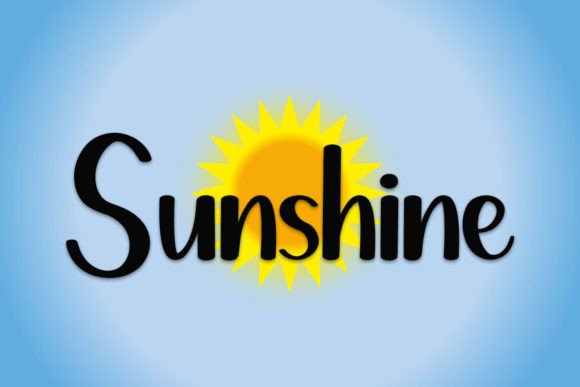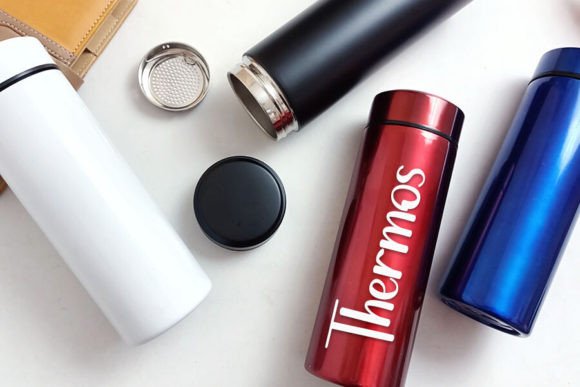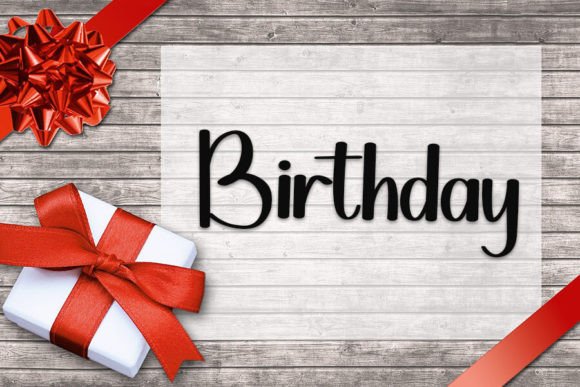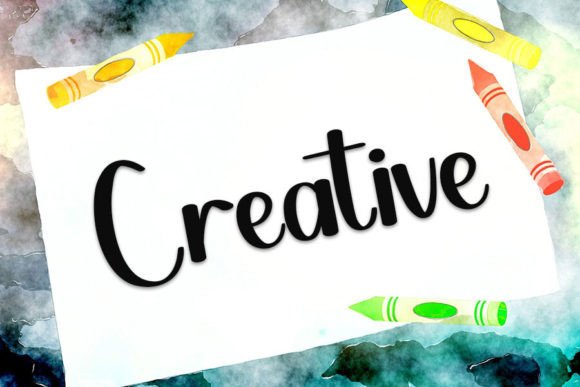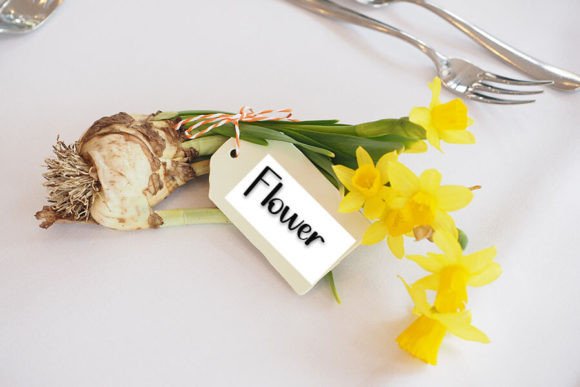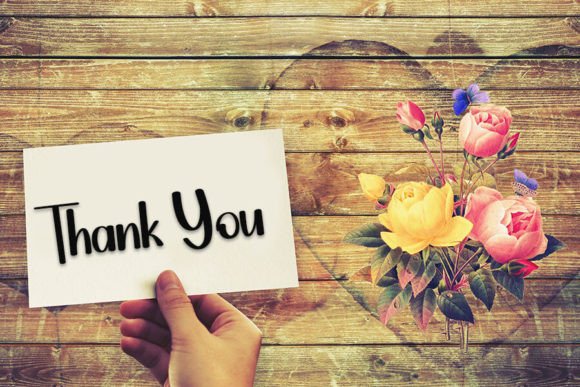
Introducing Heater Font: Elevate Your Designs with Elegance
In the world of typography, fonts play a crucial role in conveying the tone and aesthetic of a design. For designers and crafters seeking a unique and sophisticated touch, Heater Font is an exceptional choice. This stunning handwritten font boasts an elegant flair, making it perfect for a wide range of projects. In this article, we’ll dive into the features and benefits of Heater Font, and explore how it can elevate your designs to new heights.
The Distinctive Charm of Heater Font
Heater Font is a beautifully crafted handwritten font that exudes a sense of refinement and poise. Its incredibly distinct and timeless style is sure to capture the attention of your audience. The font’s elegant touch is characterized by flowing lines, subtle curves, and a sophisticated feel. Whether you’re working on a branding project, a wedding invitation, or a digital platform, Heater Font is sure to make a lasting impression.
Key Features of Heater Font
- Handwritten Elegance: Heater Font boasts a beautiful, handwritten aesthetic that adds a touch of warmth and personality to your designs.
- Distinctive Style: The font’s unique character set and elegant lines ensure that your designs stand out from the crowd.
- Timeless Appeal: Heater Font’s classic style ensures that your designs remain relevant and stylish for years to come.
- Versatility: This font is perfect for a wide range of projects, from branding and advertising to packaging and digital design.
Why Choose Heater Font?
With so many fonts available, why choose Heater Font? Here are just a few reasons why designers and crafters love this beautiful font:
- Easy to Read: Heater Font is incredibly legible, making it perfect for body text, headings, and titles.
- Highly Versatile: Use Heater Font across various platforms, from print to digital, and maintain consistency in your brand’s visual identity.
- Unique Character Set: The font’s distinctive character set ensures that your designs are instantly recognizable.
- Support for Multiple Languages: Heater Font supports a range of languages, making it a great choice for global brands and projects.
Design Inspiration with Heater Font
Heater Font is an incredibly versatile font that can be used in a wide range of design projects. Here are a few ideas to get you started:
- Branding and Logos: Use Heater Font to create a unique and memorable brand identity.
- Wedding Invitations: Add a touch of elegance to your wedding stationery with Heater Font.
- Packaging Design: Elevate your product packaging with the sophisticated style of Heater Font.
- Digital Platforms: Use Heater Font to create engaging and stylish digital content, from social media graphics to website headers.
In conclusion, Heater Font is a stunning handwritten font that offers a unique blend of elegance and sophistication. Its distinctive style, versatility, and timeless appeal make it an excellent choice for designers and crafters seeking to elevate their designs. Whether you’re working on a branding project, a wedding invitation, or a digital platform, Heater Font is sure to make a lasting impression. So why wait? Fall in love with Heater Font and take your designs to new heights!